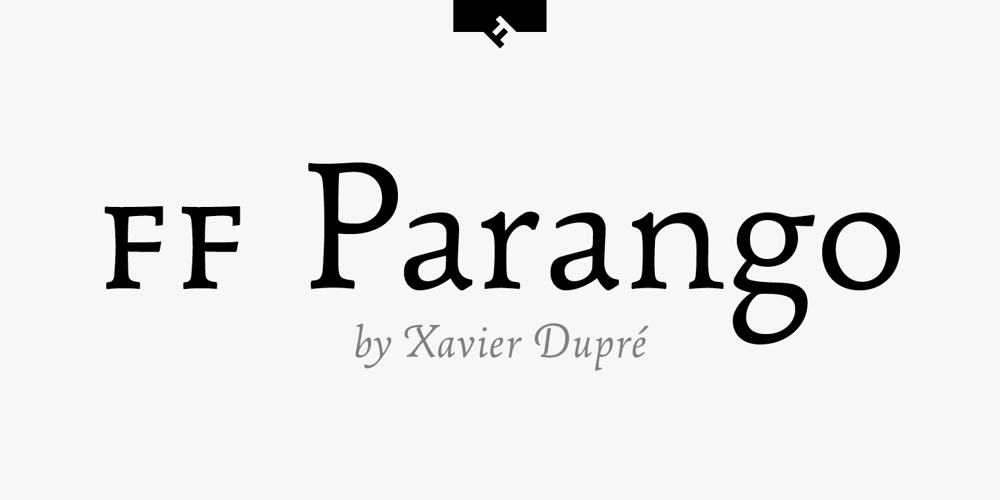
FF Parango Font Family was designed by Xavier Dupré and published by FontFont. FF Parango contains 3 styles and family package options. French type designer Xavier Dupré created this serif FontFont in 2001. The family contains 3 weights: Regular, Italic, and Bold and is ideally suited for advertising and packaging, book text, film and tv as well as small text. FF Parango provides advanced typographical support with features such as ligatures, small capitals, alternate characters, case-sensitive forms, and stylistic alternates. It comes with a complete range of figure set options – oldstyle and lining figures, each in tabular and proportional widths.